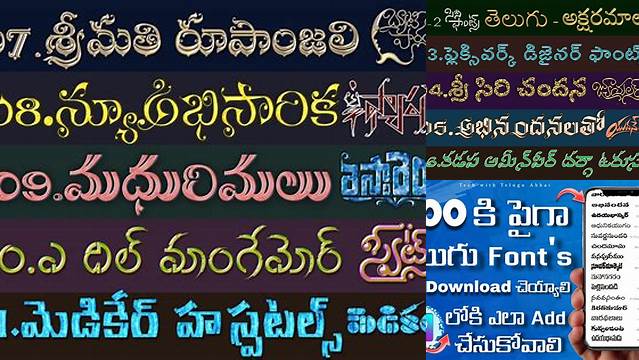
Telugu Fonts: A Gateway to Visual Expression
Telugu fonts, guys, are more than just letters and characters; they're a visual representation of a rich cultural heritage. They're the voice of stories, poems, and everyday conversations. With the right Telugu fonts, you can transform simple text into stunning designs that capture the essence of the language and its beauty. Finding the perfect font is like finding the right outfit – it can completely change the feel and impact of your message. From traditional scripts to modern designs, there's a Telugu font out there for every need. Strong Telugu fonts can enhance your creative projects, whether you are creating posters, designing websites, or writing documents. Imagine how your work can pop up when you have various options of beautiful Telugu fonts in your collection. You'll be able to create visually appealing content that looks professional and beautiful for both online and offline purposes. Also, using different fonts can highlight important information to make it easier for readers to focus on your content. It will help you make your design look attractive and boost your audience's attention.
Exploring the World of Telugu Typography
So, let's dive a little deeper into the amazing world of Telugu typography. Telugu fonts have a unique character set that includes both vowels and consonants, which means that the selection of Telugu fonts offers a wide array of styles and designs. These fonts aren't just functional, they're also artistic! Some Telugu fonts are based on traditional calligraphy, while others are inspired by contemporary designs. There's a Telugu font for every occasion, from formal documents to creative projects. Let's take a closer look at some of the most popular categories. You will discover fonts with a formal and classic look for official communications and business documents. There are also casual fonts, best suited for friendly purposes and creative designs. Also, you can find handwriting fonts that mimic the look of handwritten text, and are great for personal notes, signatures or adding a unique touch to your projects. You also have decorative fonts to create a beautiful look and highlight your work. These fonts can also add unique and exciting details.
The Importance of Choosing the Right Telugu Font
Choosing the right Telugu font is super important! It's like choosing the right music for a movie scene – it sets the mood and tone. Think about the message you want to convey. If you're designing something formal, a clean and professional font is best. If you're going for a more creative or playful vibe, you can choose a more decorative font. Another factor is readability. Make sure your chosen font is easy to read, especially in smaller sizes. Readability is important so that the reader can easily grab the information on your work. Font can significantly impact the reader's experience. Poor font choices can make the information difficult to read, which might cause the audience to get frustrated. If you want to use the font to design a website, you have to consider the overall design of your website. You should choose a font that complements the overall aesthetics and branding. You also have to consider the target audience, because this will affect the font you choose. The font should be appropriate for your audience.